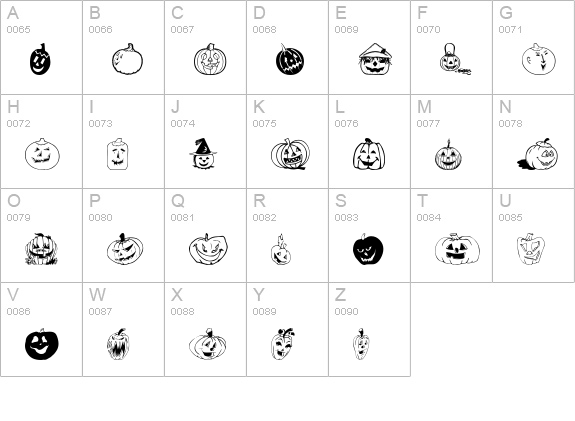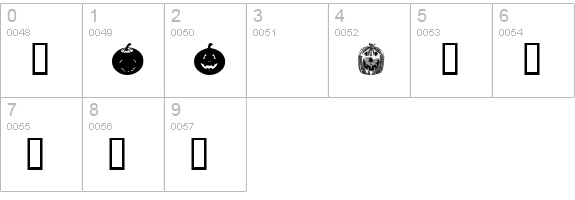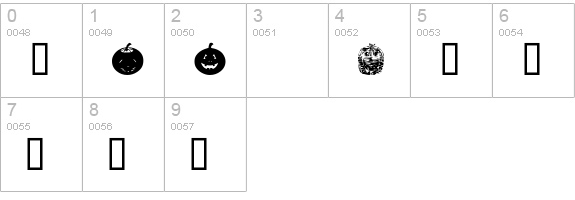
Bumkins Font Details
Bumkins font is a whimsical and playful typeface that exudes charm and personality. With its rounded edges and friendly appearance, Bumkins is perfect for adding a touch of fun to your designs. Whether you're working on a children's book, a greeting card, or a branding project for a quirky brand, Bumkins will bring a sense of joy and creativity to your work. What's even better is that Bumkins font is available for free download at FontsMarket.com. You can easily access this delightful typeface and start incorporating it into your projects right away. So go ahead and give Bumkins font a try - let its unique character and lighthearted vibe elevate your designs to a whole new level!